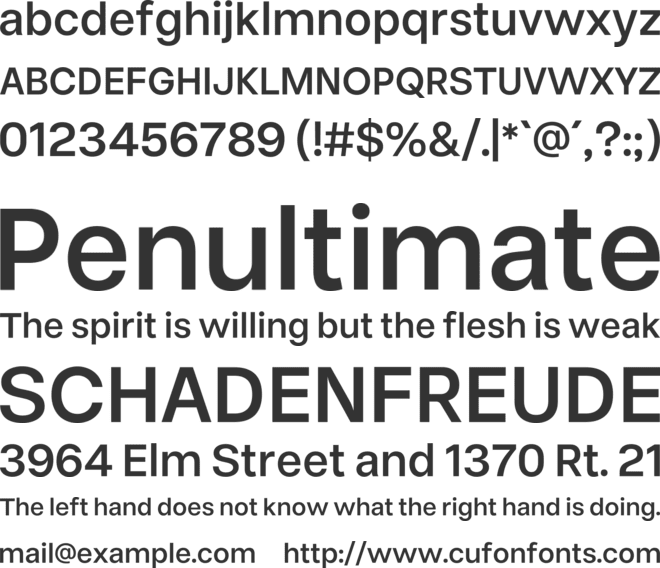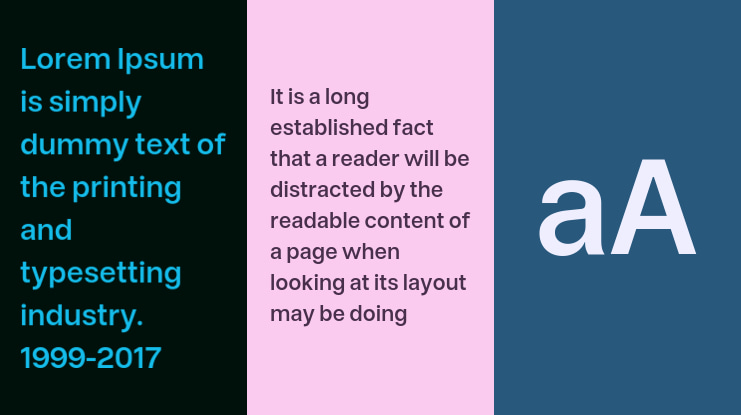
Neutiva Font Family
By Yukita Creative, Abdul Artega
Neutiva is a modern sans serif font crafted for corporate logo design, professional branding, and business identity projects. This Neo Grotesk typeface delivers clean shapes, balanced proportions, and exceptional readability, making it a perfect choice for both digital and print application.